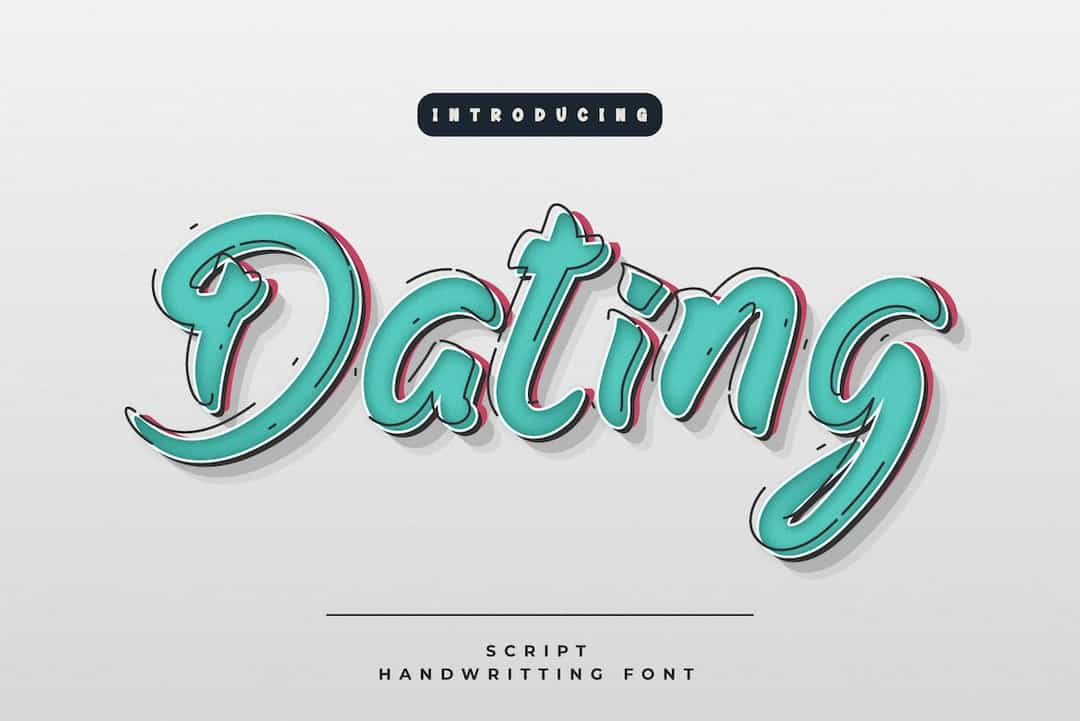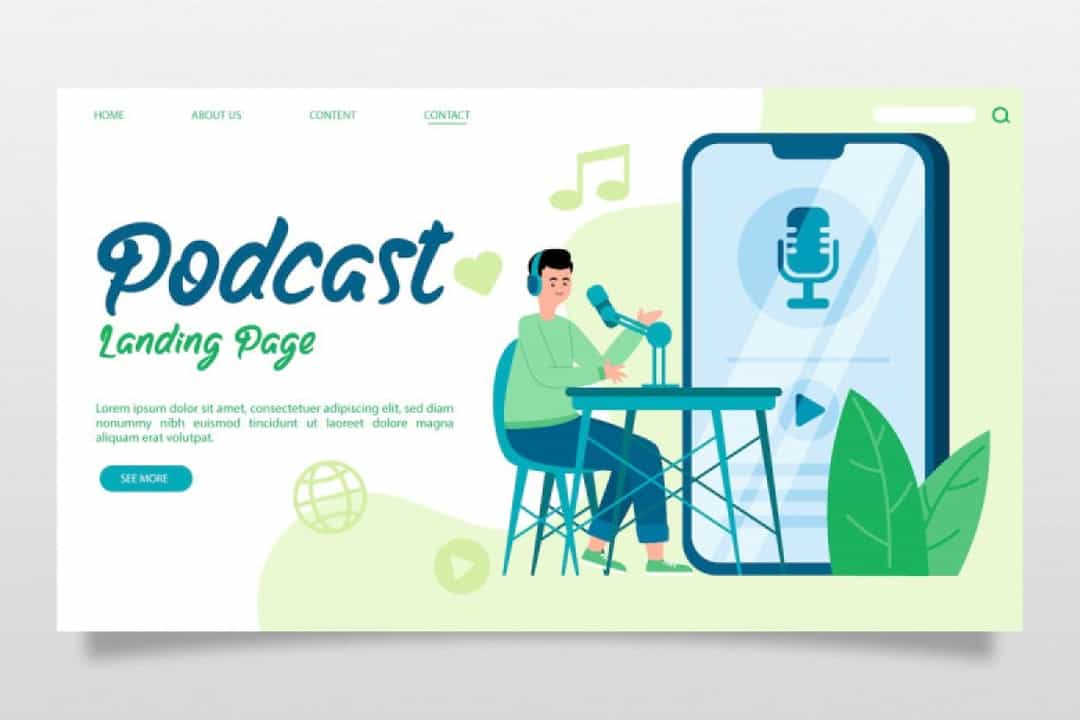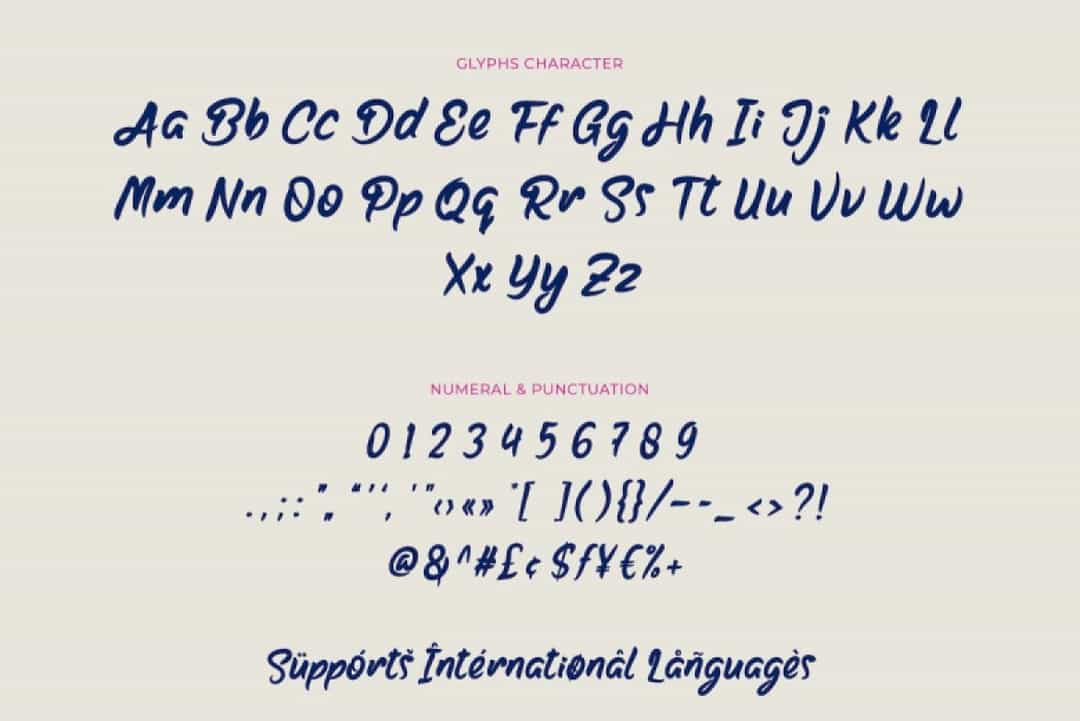
Dating is an elegant handwritten typeface designed with painted brushes for use with digital designs or crafting presentations or greeting cards or presentations making – it is the ideal font! Written entirely by hand for maximum personality. It boasts its unique and striking style.